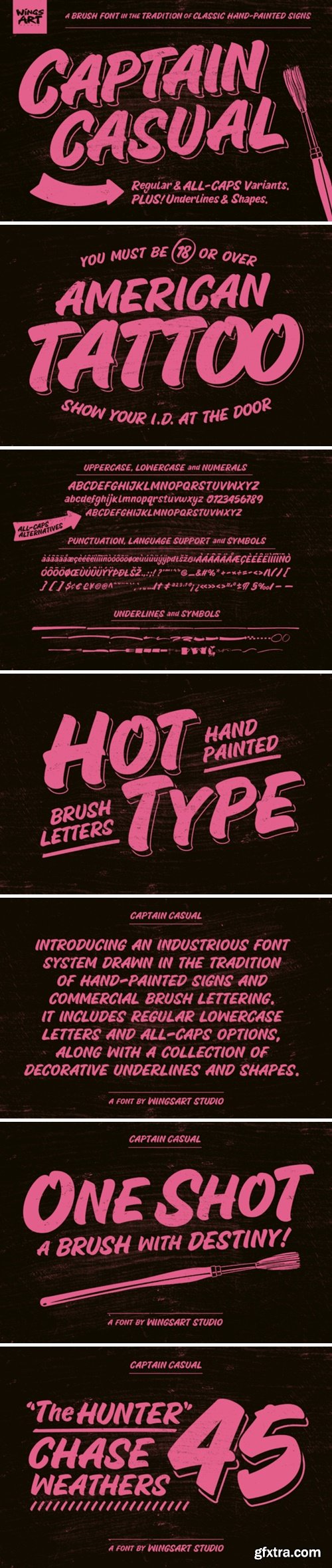
Captain Casual – A Brush Font in the Tradition of Classic Hand-Painted Signs Introducing an industrious font system drawn in the tradition of hand-painted signs and commercial brush lettering. Captain Casual includes regular lowercase letters and all-caps options, along with a collection of decorative underlines and shapes, making it a crucial addition to your toolbox.
Seen decorating America’s most design-savvy storefronts, billboards, and work vehicles, the brush-lettering style referred to as ‘Casual’ represents an essential tool in the sign painter’s arsenal, combining the appearance of laid-back cool with a legibility that means business. It’s a highly adaptable design that reads well in sizes large and small, perfect for everything from diners to drag strips, and a worthy addition to your font library.